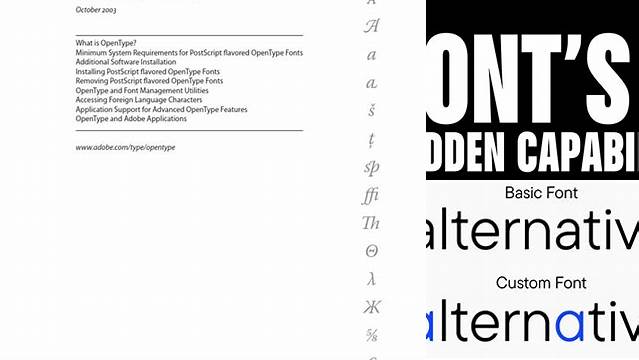
Using OpenType Fonts: A Beginner's Guide
Hey guys! Let's dive into the world of OpenType fonts! Ever wondered how to use them effectively? Well, you're in the right place. This guide will walk you through everything, from understanding what they are to implementing them in your projects. OpenType fonts are the superheroes of the font world, offering a ton of features beyond the basics. They're super versatile, and once you get the hang of them, you'll wonder how you ever lived without them. So, buckle up, and let's get started on this awesome adventure into the world of typography!
Understanding OpenType Fonts: What Makes Them Special?
OpenType fonts, unlike their older Type 1 or TrueType predecessors, are packed with a bunch of advanced features and capabilities. Think of them as the upgraded versions of your favorite fonts. The 'OpenType' format was developed by Adobe and Microsoft, and it's designed to work cross-platform, meaning they play nice with both Windows and macOS systems – a massive win for design consistency! One of the biggest advantages of OpenType fonts is their ability to contain a significantly larger number of glyphs (characters) than older formats. This means support for extended character sets, including special characters, ligatures, swashes, and even multiple language support. This allows designers to create more expressive and nuanced typography.
Let's get technical for a sec. The magic behind OpenType fonts lies in the 'OpenType Layout' technology, which allows fonts to include sophisticated features such as ligatures (where two or more letters are joined into a single character for a smoother look), contextual alternatives (where the shape of a letter changes based on its surrounding letters), and stylistic sets (allowing designers to switch between different versions of the same font for different looks).
Think about it: you can change the style of a 'g' or the 'a' in a word. This is super awesome! OpenType fonts also offer features like old-style figures (numbers with varying heights, which blend better with text), fractions, and even small caps, which are capital letters designed to match the x-height of lowercase letters. This level of control is a game-changer for anyone serious about typography. For designers, this means more creative freedom. For users, it means a better reading experience. The ability to access these features varies depending on the software you're using, but most modern design and word processing applications offer robust OpenType support. We'll get more on that. So, OpenType fonts are not just about aesthetics. They're about functionality, versatility, and giving you the power to create truly outstanding typography.
Delving Deeper: The Advantages of OpenType Over Other Font Formats
Alright, let’s get into what makes OpenType fonts the top dogs in the typography world, especially when compared to the older formats. We're talking about the likes of Type 1 and TrueType fonts here. First off, the sheer versatility is a massive win. OpenType fonts can handle way more characters than the old formats. This isn’t just about having more letters; it’s about supporting a ton of different languages and special characters, which opens up possibilities for international projects and designs. Also, OpenType has advanced features. The older formats are just not set up to do the fancy things like ligatures (where letters merge smoothly), contextual alternates (letters changing shape depending on what’s around them), and stylistic sets (different versions of the same font). These features make your text look way better. OpenType is also better for cross-platform compatibility. OpenType fonts are designed to work smoothly on both Windows and macOS. This means no more font compatibility headaches when you're sharing files with others or working on different systems. This is a huge advantage for designers and anyone who works with text. You get consistency across the board.
Another major point is the font quality. OpenType fonts are often encoded more efficiently, which can lead to better display quality, especially at small sizes. This is because they support hinting, which is a technology that makes fonts look sharp and clear on different screen resolutions. And let’s not forget the licensing. OpenType fonts often come with more flexible licensing options. Plus, OpenType is an evolving standard. It means that these fonts are constantly getting better. New features and capabilities are added regularly, and the older formats are more or less stuck in the past. So, in a nutshell, OpenType fonts are a superior choice because they're versatile, packed with features, platform-friendly, and often offer better display quality. It's really a no-brainer for anyone serious about using fonts.
Practical Examples: OpenType Features in Action
Okay, let's bring this down to earth. How do these OpenType features actually work in real-world design? Let's look at some cool examples. First, let’s talk about ligatures. Have you ever seen the letters 'f' and 'i' blend together into a single character? That's a ligature in action. It smooths out the text and makes it look more elegant. OpenType fonts make it easy to use ligatures, and it’s super satisfying. Then there are contextual alternates. These are subtle but powerful. In certain OpenType fonts, the shape of a letter changes depending on the letters around it. For example, the shape of the 'a' might vary depending on whether it's followed by an 'n' or an 'o'. This creates a more natural and flowing look. Think of it like the font is trying to make your text look great! Next up: Stylistic Sets. These give you different versions of the same font. You might have one version that looks a bit more formal and another that looks more casual. This lets you add extra creativity to your text.
We also have old-style figures. These are numbers designed to blend in with lowercase text. They have varying heights, unlike the standard numbers, which are all the same height as capital letters. Using old-style figures is a neat trick if you want to add numbers to your text. Some fonts also support fractions. Instead of typing '1/2', you can get a proper fraction character. This is a small detail, but it adds a professional touch to your documents, especially in technical or mathematical contexts. Lastly, there's small caps. These are capital letters designed to match the height of lowercase letters. They're great for headings or emphasis without screaming for attention. To get these features, you'll usually need to go into your software's advanced settings. In design software like Adobe InDesign or Illustrator, you'll find these options in the character or OpenType panels. In word processors like Microsoft Word or Google Docs, the options might be under the font settings or special characters menus. It varies. The key is to explore your software's features, and you'll discover the potential of OpenType fonts. From simple ligatures to complex stylistic sets, these features can elevate your typography from basic to brilliant.
Choosing the Right OpenType Font for Your Project
Choosing the right OpenType font is about matching the font's character to the project's goal. First things first: consider the style. Are you going for something classic, modern, or playful? Serif fonts (with those little strokes at the end of letters) often have a more traditional feel, while sans-serif fonts (without the strokes) tend to look clean and contemporary. The right font style depends on the feel you're aiming for, like the kind of vibe you're trying to create. Next, think about readability. Is your text meant for a long article, a poster, or a website? Some fonts are great for body text, and others are better suited for headlines. For body text, look for fonts with a high x-height (the height of the lowercase 'x') and clear letterforms. For headlines, you can get away with more stylized fonts. But hey, make sure your audience can read what you write.
Then there's the mood you're trying to create. A font can be soft and friendly, bold and serious, or edgy and artistic. For a children's book, a fun, rounded font might be perfect. For a corporate report, you might go for something more professional. Also, don't be afraid to experiment. Try out different fonts and see how they look in your project. Most design software allows you to preview fonts directly in your design. You can experiment with different sizes, weights, and styles. This is super helpful when you are trying to create the perfect look. You can explore font combinations. Mixing and matching fonts can add visual interest, but be cautious. Don't go overboard. Stick to a few fonts that work well together. When choosing OpenType fonts, think about the extended features they offer. Can you access ligatures, stylistic sets, and other special characters? These features can add finesse and create a unique look. Finally, consider licensing. Make sure you understand the font's licensing agreement. Some fonts are free for personal use but require a license for commercial projects. So, matching the style and use is everything. It’s about the look and the features, so choose wisely and have fun!